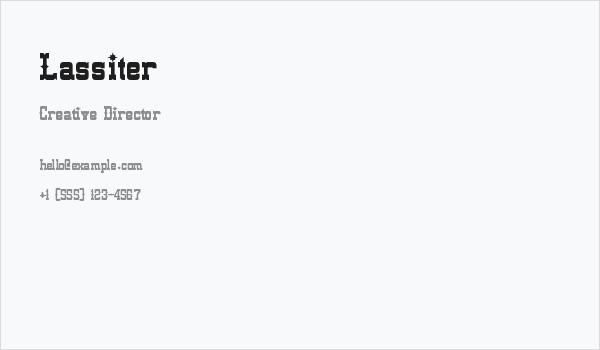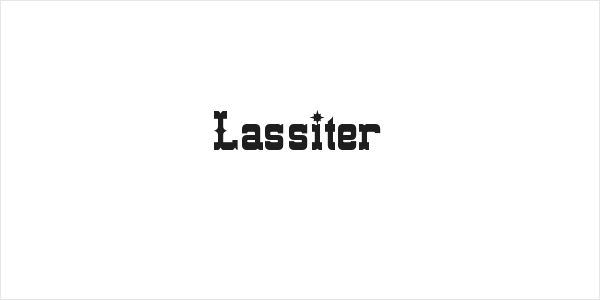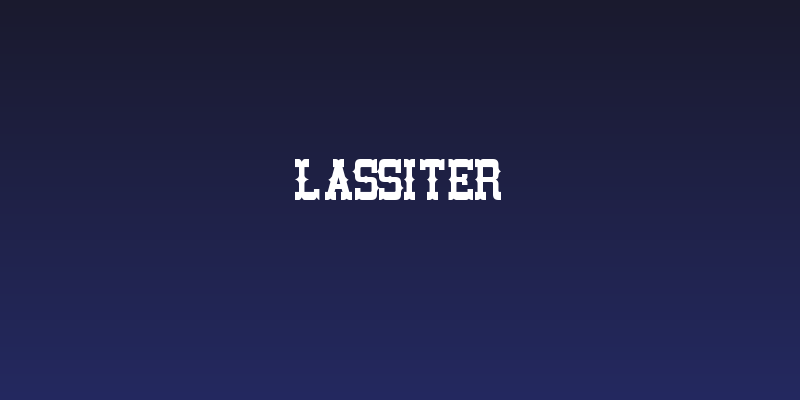
Lassiter Font
Lassiter Description
This font features a bold and striking design, characterized by its thick, blocky letterforms with sharp edges and a strong presence. The uppercase letters are particularly commanding, with a uniform height and width that create a sense of stability and strength. The lowercase letters maintain this boldness, offering a consistent look across both cases. The numbers are equally robust, ensuring they stand out clearly in any context. Special characters are designed with the same bold aesthetic, making them easily recognizable. The font's overall style is reminiscent of vintage western or industrial themes, making it ideal for projects that require a strong, impactful visual statement.
| Overall Style | Vintage, Industrial |
| Proposed Projects | Ideal for posters, branding, logos, and any design requiring a strong, impactful typeface. |